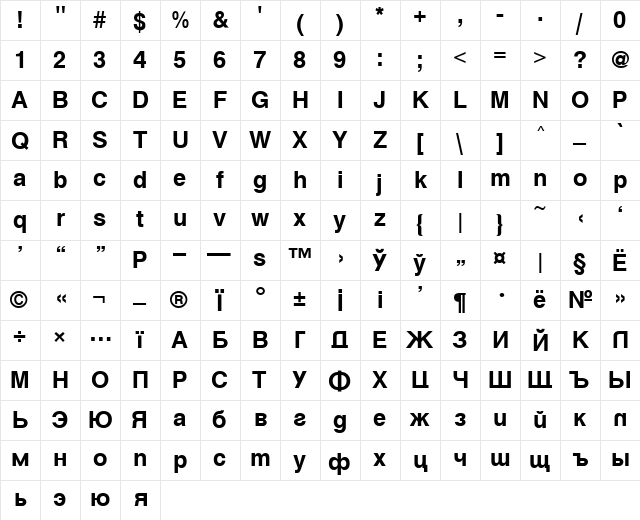
Complete Vanta Bold Plain glyph index. Displaying only characters natively supported by Vanta Bold Plain font.
Vanta Bold is a composed and adaptable typeface that performs quietly and consistently across a wide range of design contexts. Its bold stroke weight gives it real presence on the page.